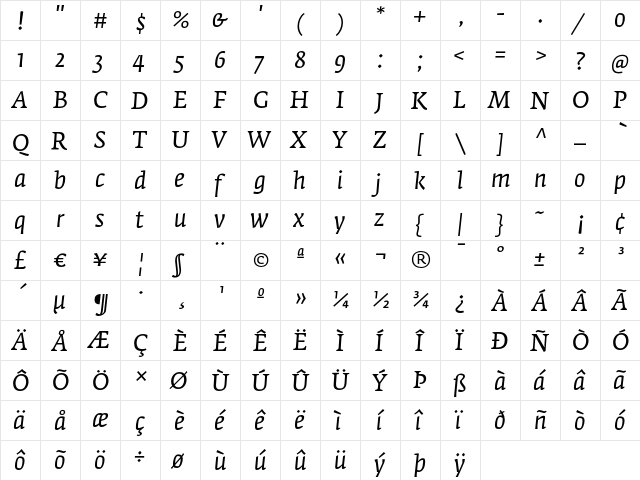
Fedra Serif A Book Italic Font Preview
Fedra Serif A Book Italic
| Foundry | Peter Bilak https://www.typotheque.com), |
Design Context for Fedra Serif A Typeface
Fedra Serif A brings classic typographic sensibility to the table — its serifs and measured letterforms reflect centuries of print heritage. Its italic angle brings a sense of urgency and motion to the letterforms.
Pro Tip: Set Fedra Serif A with slightly loose tracking in headlines to let each letterform's detail read clearly at display sizes.